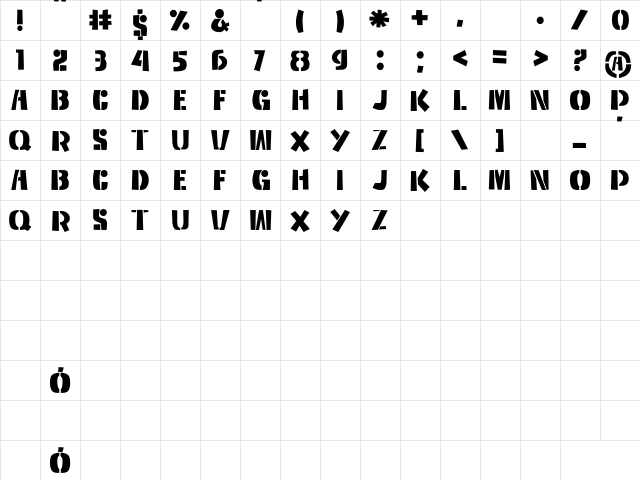
Szablon Regular
Design Context for Szablon Typeface
Szablon takes a measured approach to typography — its balanced proportions and neutral character make it a reliable workhorse for both digital and print work.